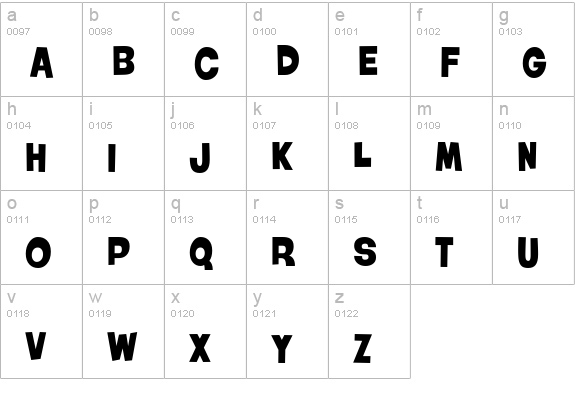
Roller World BTN Bold is a strong, high-contrast variant in the Roller typeface family \xE2\x80\x94 well suited to headlines, attention-grabbing titles, and strong calls-to-action.
Roller World BTN Bold font is a striking and bold typeface that commands attention with its strong presence and dynamic design. Perfect for adding a touch of energy and excitement to your projects, this font exudes a sense of motion and impact. Its thick, robust letterforms make a bold statement, ideal for headlines, posters, and branding materials. And the best part? Roller World BTN Bold font is available for free download at FontsMarket.com. This means you can easily access this eye-catching font and incorporate it into your designs without any cost. Don't miss out on the opportunity to enhance your projects with the bold and powerful Roller World BTN Bold font. Download it now and make a statement with your typography!